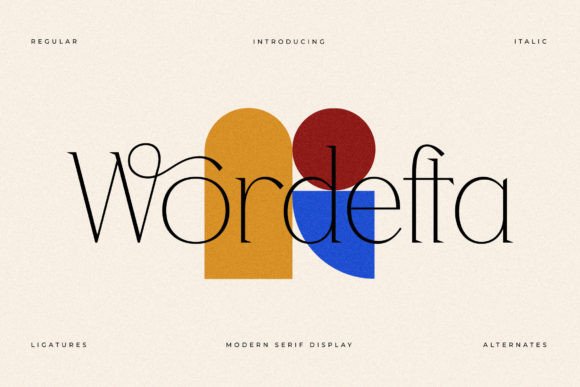
Unleash the captivating power of Wordefta, a mesmerizing serif font family crafted by the visionary designers at Storytype Studio. Each letterform exudes elegance and sophistication, imbuing your designs with a touch of timeless allure.
Step into a world of endless creative possibilities with Wordefta, the perfect font for визитки that demand attention. Its delicate curves and sweeping flourishes will transform your визитки into miniature masterpieces, leaving a lasting impression on your clientele.
Embrace Wordefta's versatility and let your imagination soar. Whether you're crafting enchanting invitations, stylish logos, or eye-catching social media graphics, this font will elevate your creations to new heights of sophistication.
Indulge in the beauty of Wordefta, a font that whispers luxury and confidence. It's the perfect choice for designers seeking to add a touch of elegance and femininity to their designs.
Don't resist the allure of Wordefta. Its charming personality and timeless appeal will captivate your audience, leaving an unforgettable mark on their minds.
Download Wordefta today and embark on a journey of creative expression. Let its enchanting curves and delicate details transform your designs into works of art that will leave a lasting impression.